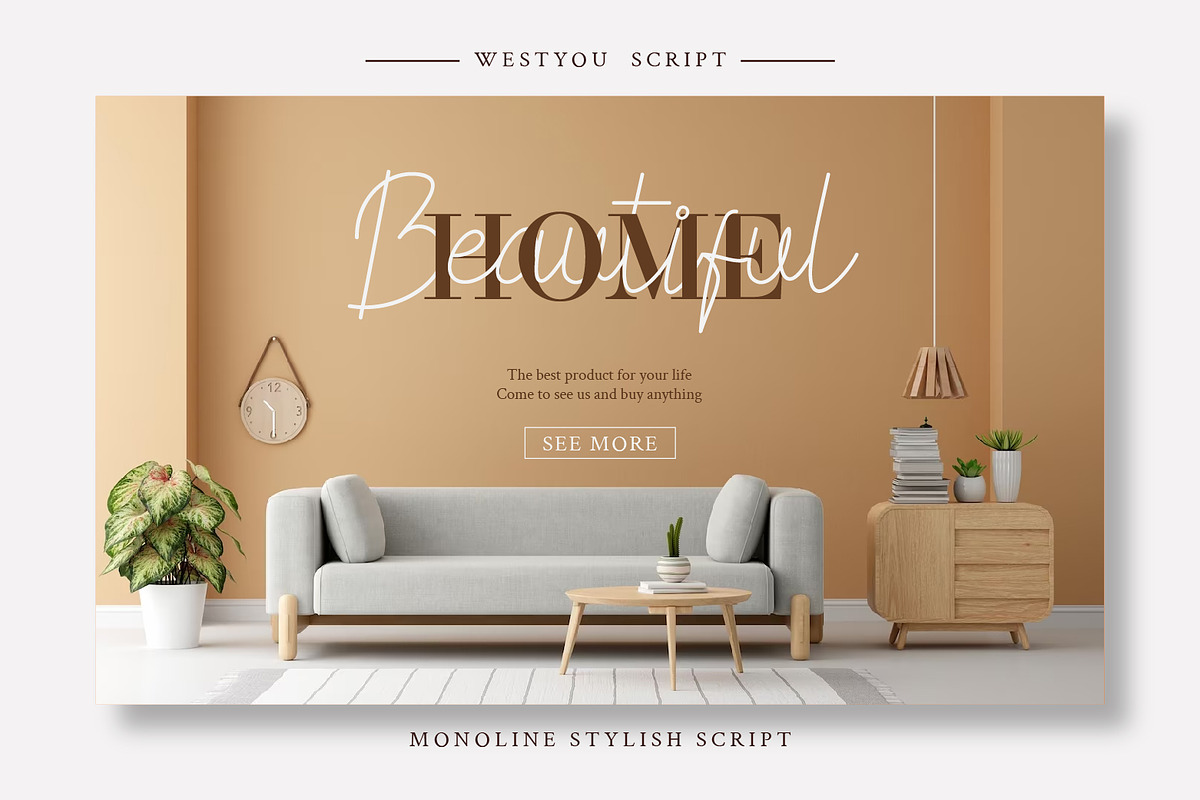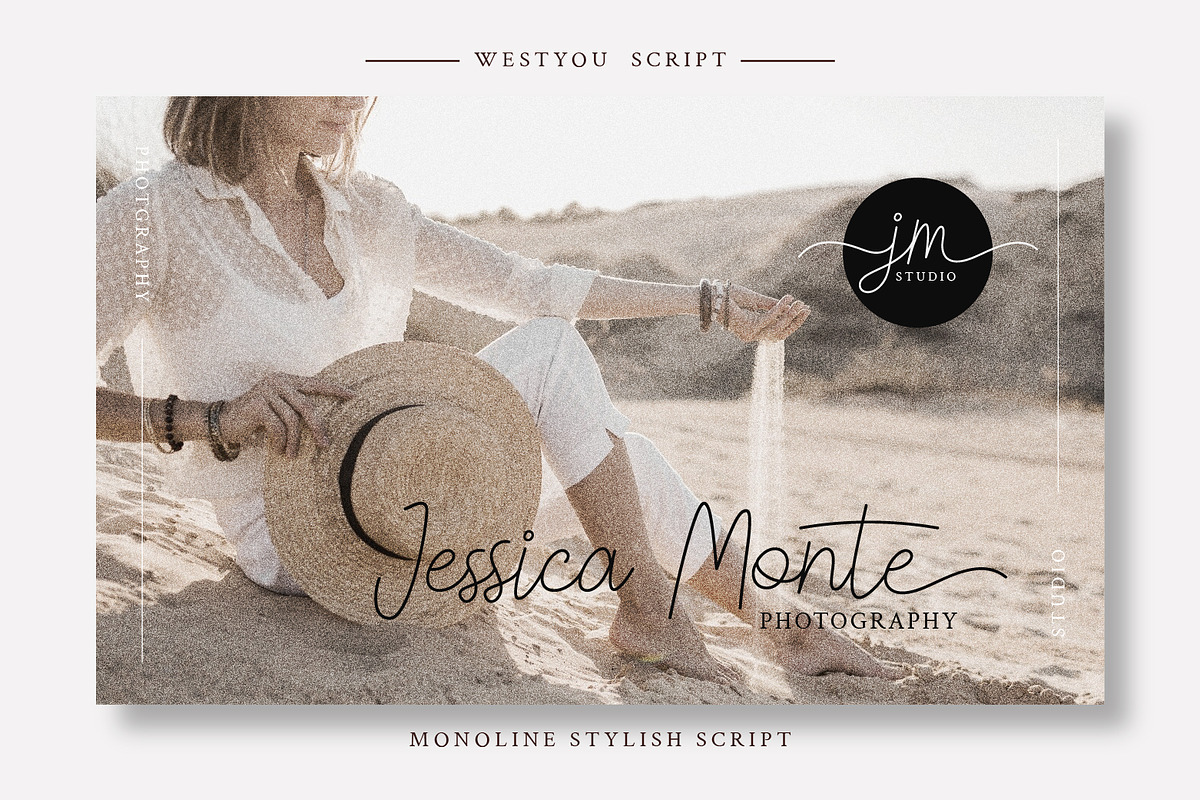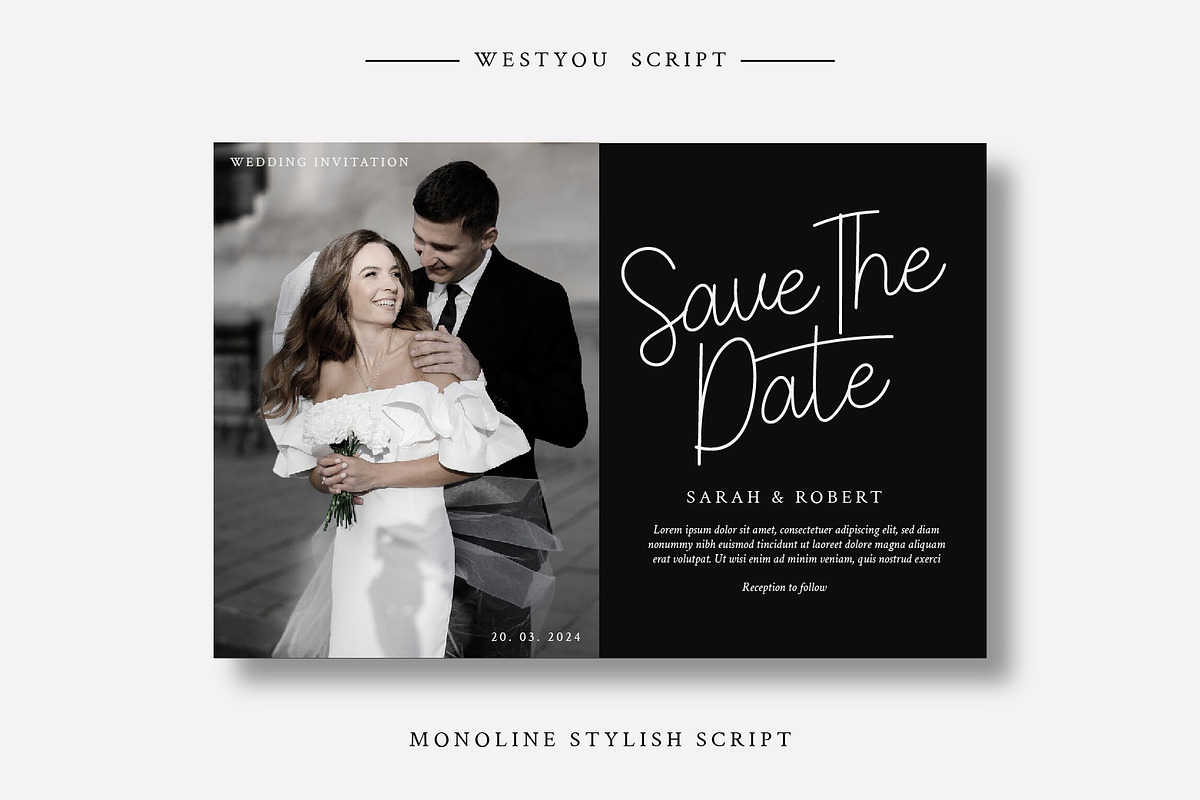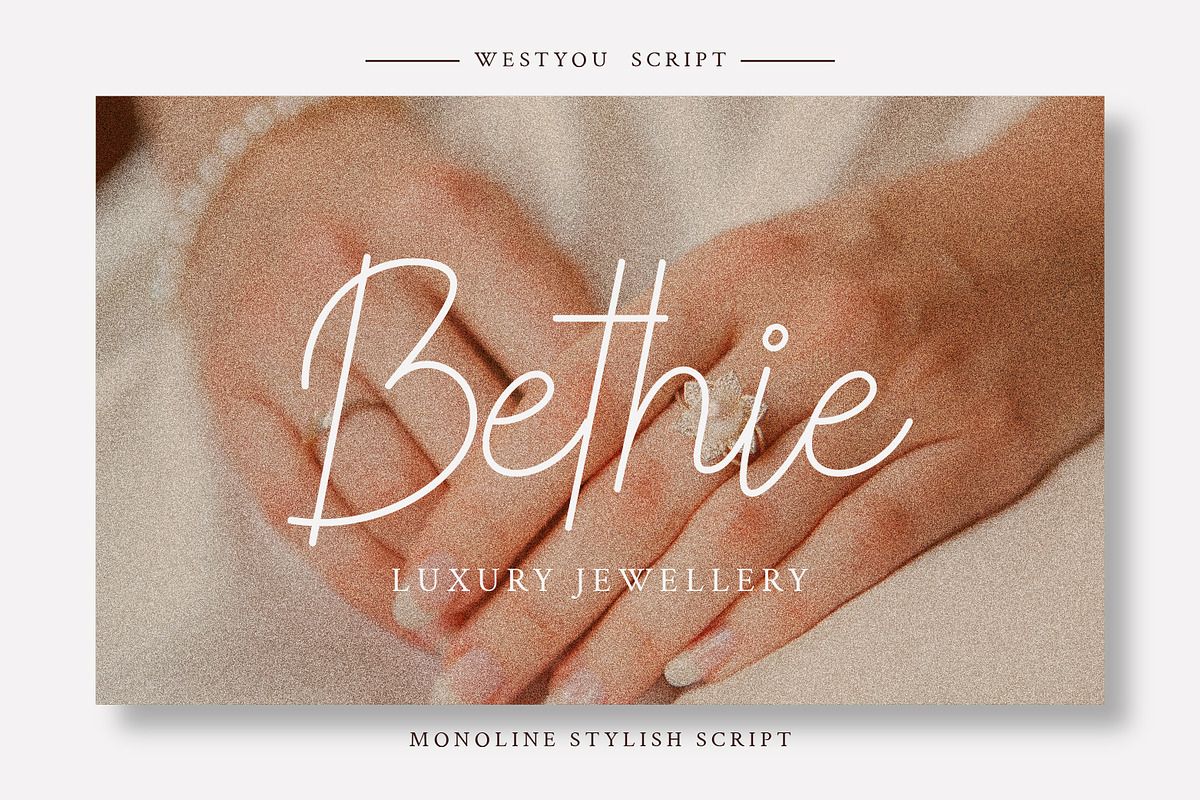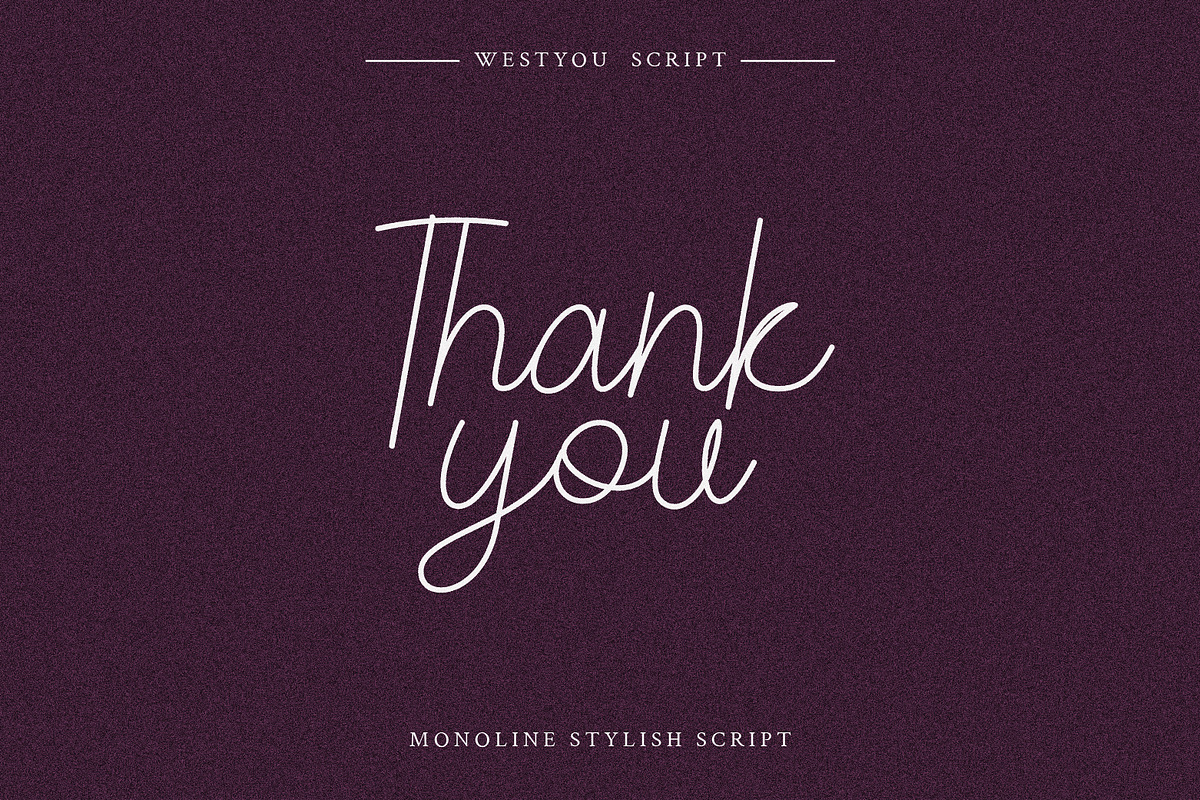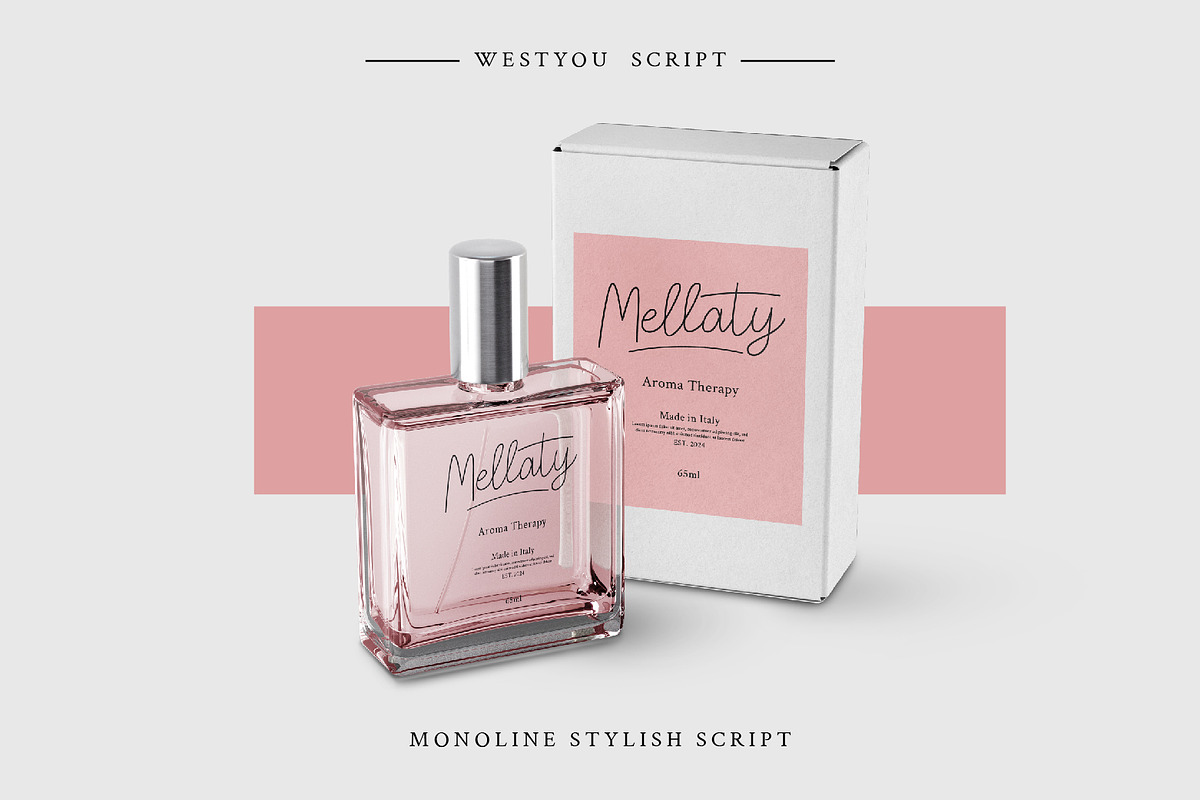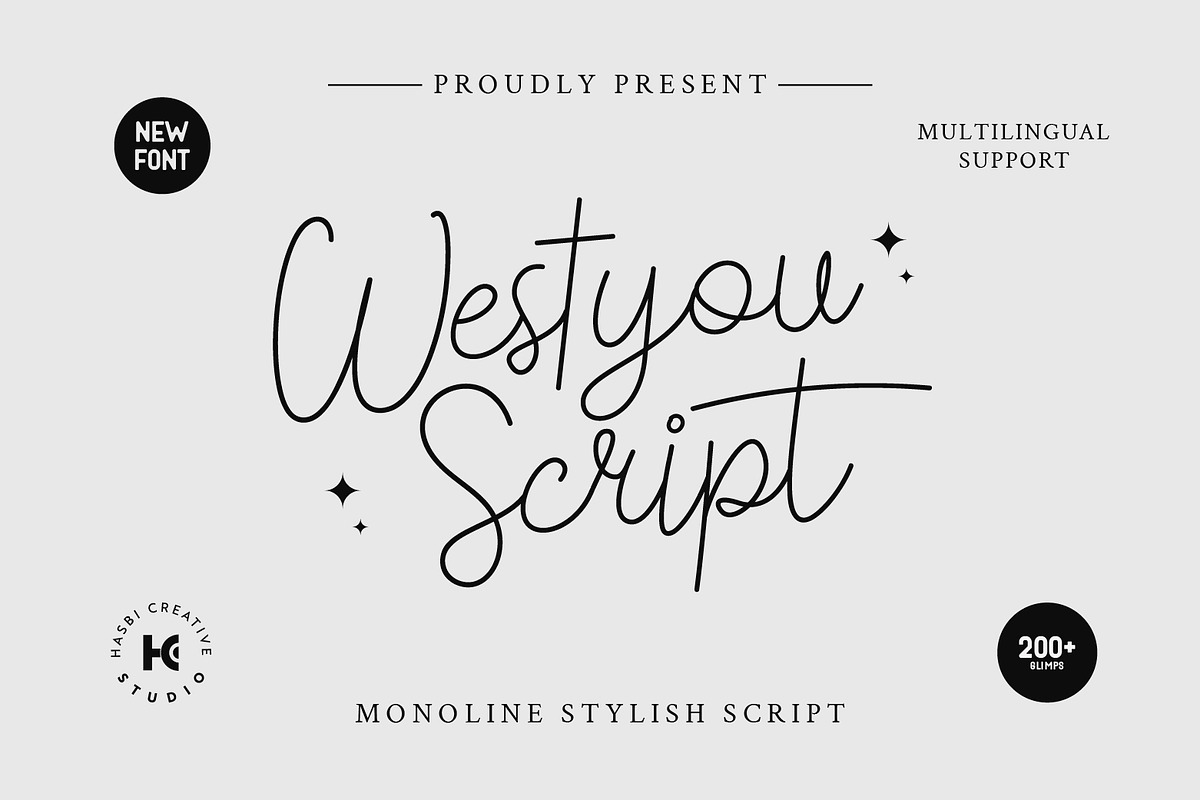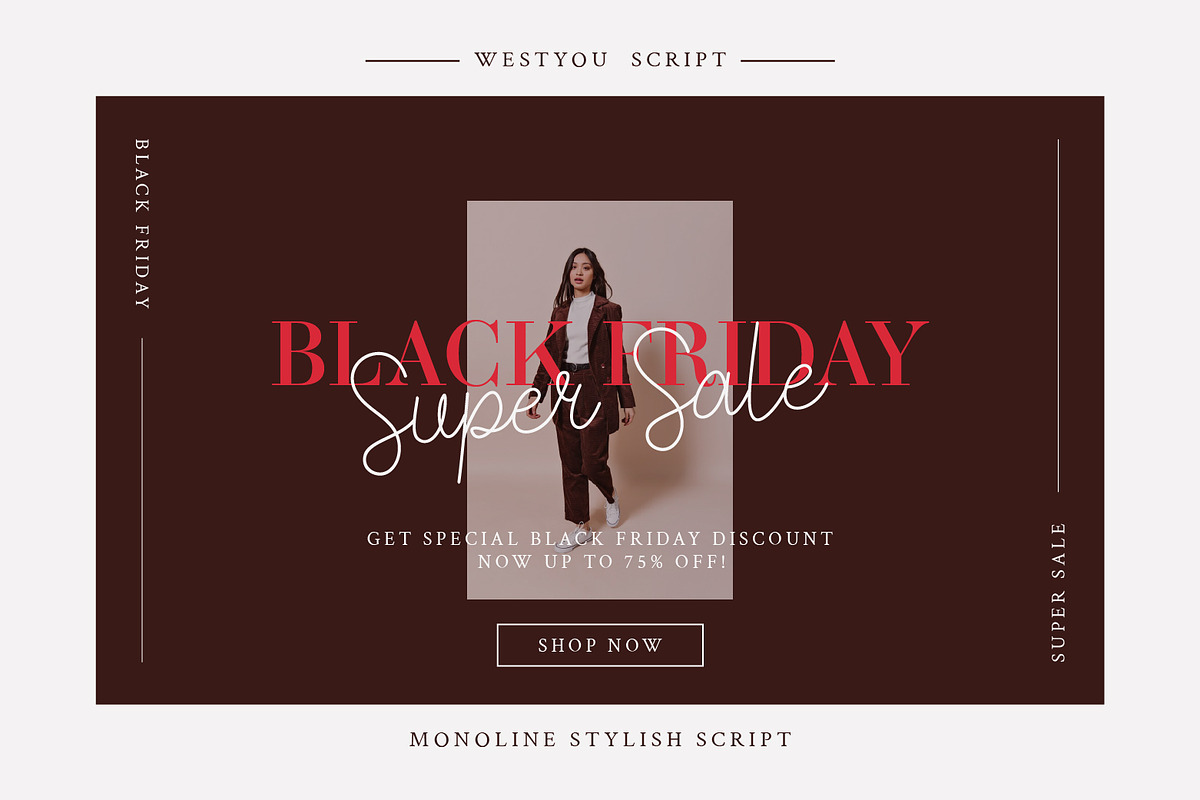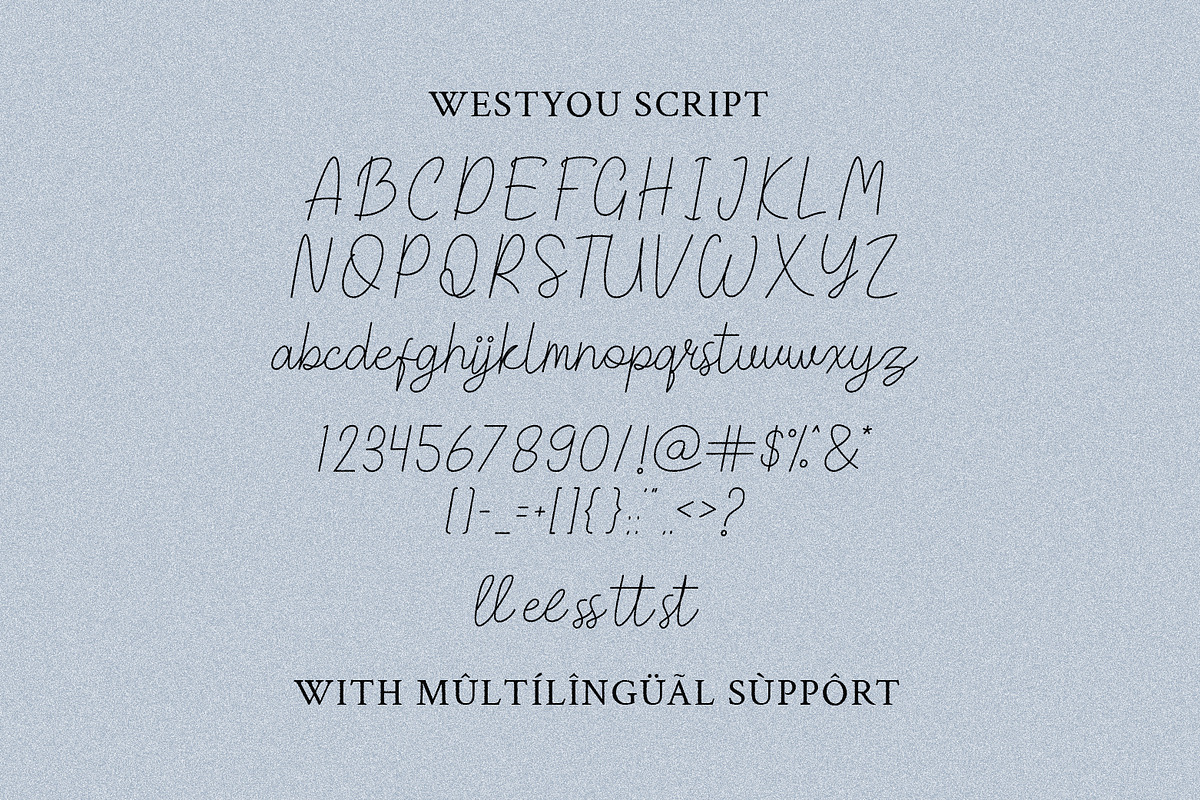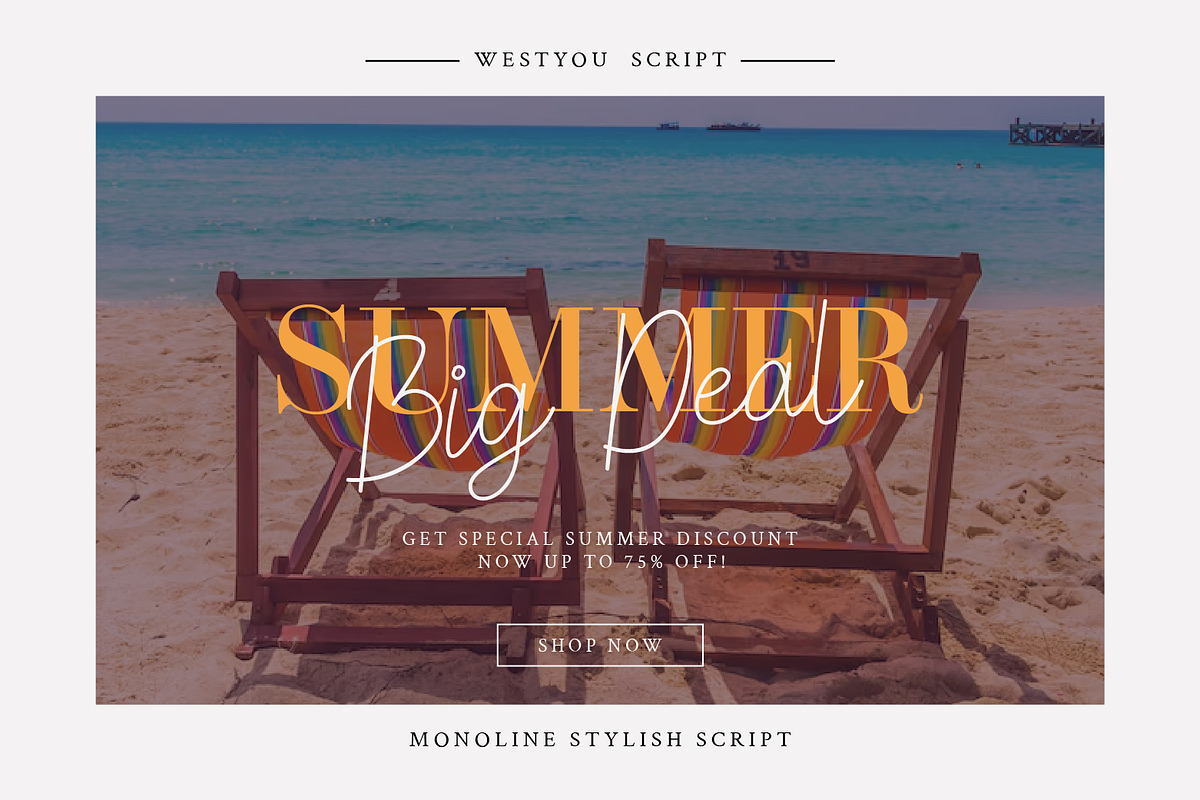
Westyou - Script Monoline
Introducing Westyou - Script Monoline, a monoline script font that is perfect for adding a touch of elegance and sophistication to your designs.
With its smooth lines and delicate curves, Westyou - Script Monoline is perfect for logos, branding, wedding invitations, social media posts, and more.
This font is
- Easy to use
- Versatile
- It comes with a variety of glyphs and alternates
Westyou - Script Monoline is a great choice for designers who want to create beautiful, timeless designs.